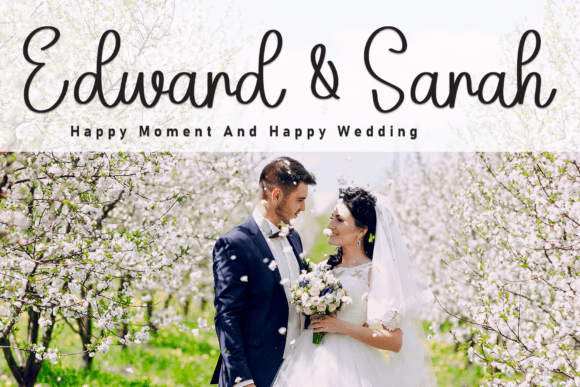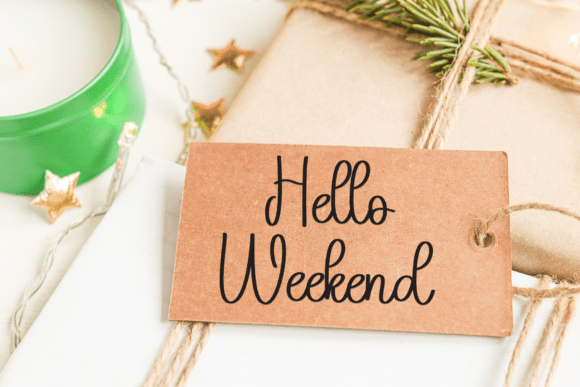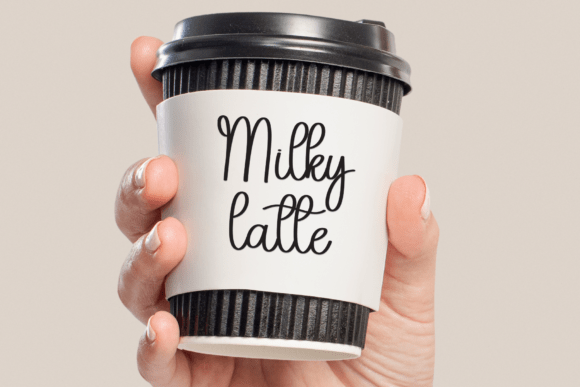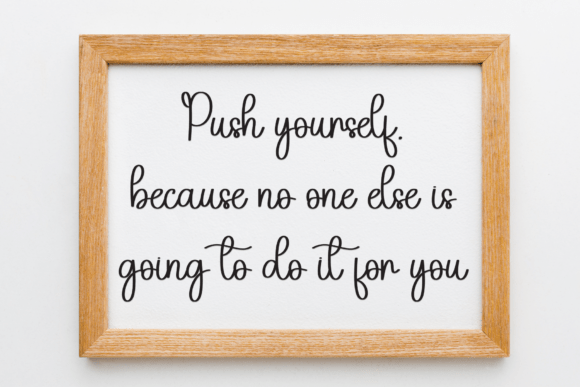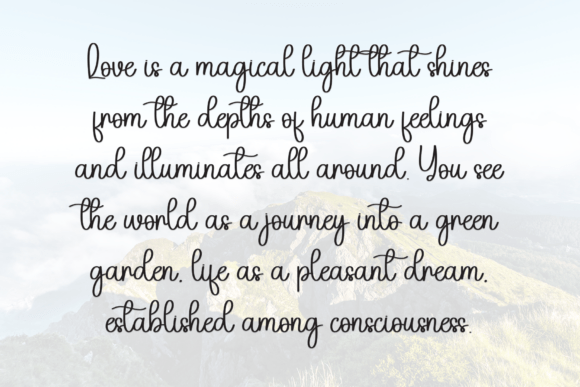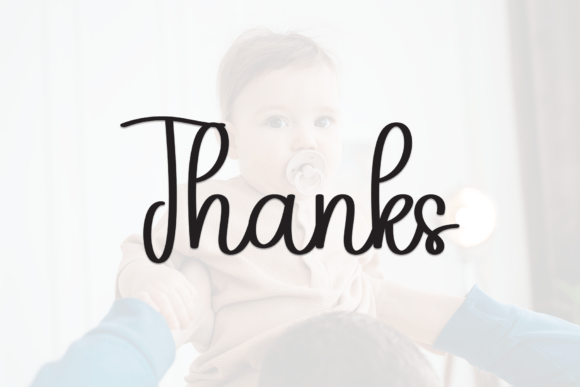
The Big Baby Font: A Whimsical Wonder for Your Designs
Have you ever been in the middle of a design project, and suddenly, you’re stuck on finding the perfect font? I recall a particularly frustrating experience while working on a wedding invitation project. My client wanted something that exuded elegance, yet playful and unique. After scouring through countless font libraries, I stumbled upon Big Baby Font, and it instantly became the perfect fit. In this article, we’ll dive into the charming world of Big Baby Font and explore its features, uses, and alternatives.
A Personal Review: What I Love About Big Baby Font
Big Baby Font has quickly become one of my go-to fonts for various design projects. Here’s what I love about it:
- ✨ Playful curves and swashes: Big Baby Font boasts beautiful, flowing curves and swashes that add a touch of whimsy to any design.
- ✅ Elegant and refined: Despite its playful nature, Big Baby Font exudes a sense of sophistication and refinement, making it perfect for wedding invitations, greetings, and other special occasions.
While Big Baby Font is an excellent choice for many design projects, there are a few minor quirks to consider:
- ⚠️ Limited use in formal contexts: Big Baby Font’s playful nature might make it less suitable for very formal or corporate designs.
- 🤔 Requires some practice to master: With its extensive features and glyphs, Big Baby Font may require some time to get familiar with, especially for beginners.
The Story Behind Big Baby Font
Big Baby Font was crafted with the intention of bringing a fresh wave of whimsy and delight to the world of design. Its creator aimed to create a font that would add a touch of joyful elegance to wedding invitations, greetings, and other special projects. With its playful curves and swashes, Big Baby Font has become a beloved choice among designers and crafters.
| What type of projects is Big Baby Font best suited for? | Big Baby Font is ideal for wedding invitations, greetings, and any project that requires a touch of joyful elegance. |
| Is Big Baby Font easy to use for beginners? | While Big Baby Font has a lot to offer, it may require some practice to get familiar with its extensive features and glyphs. |